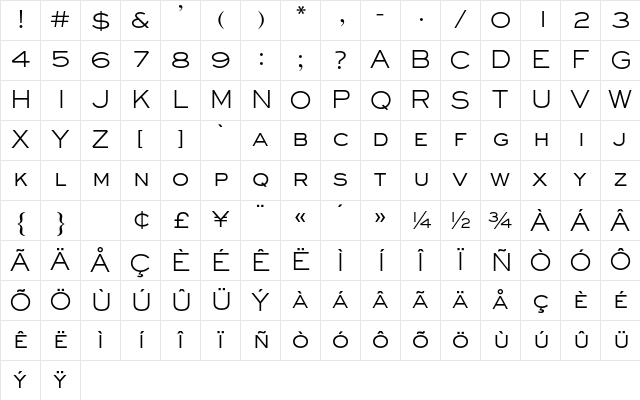
Complete Sackers Gothic Light AT Regular glyph index. Displaying only characters natively supported by Sackers Gothic Light AT Regular font.
Sackers Gothic Light AT takes a clean, functional approach - its unadorned letterforms prioritise legibility and work reliably across screen and print environments. Its slender proportions lend an understated elegance to any composition.